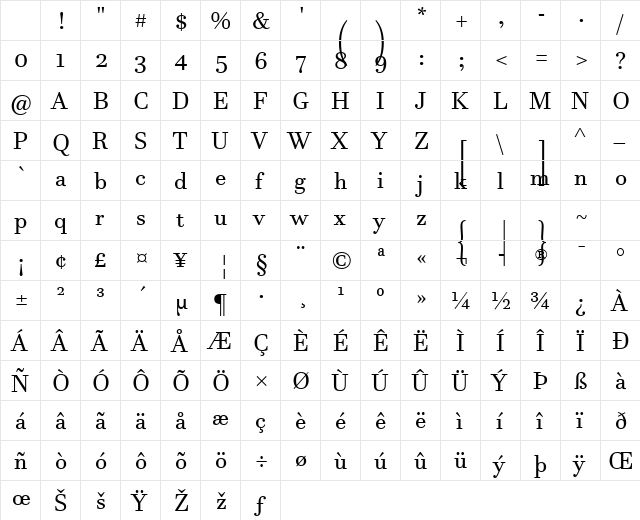
Complete Javanese Text Regular glyph index. Displaying only characters natively supported by Javanese Text Regular font.
Javanese Text is a composed and adaptable typeface that performs quietly and consistently across a wide range of design contexts.